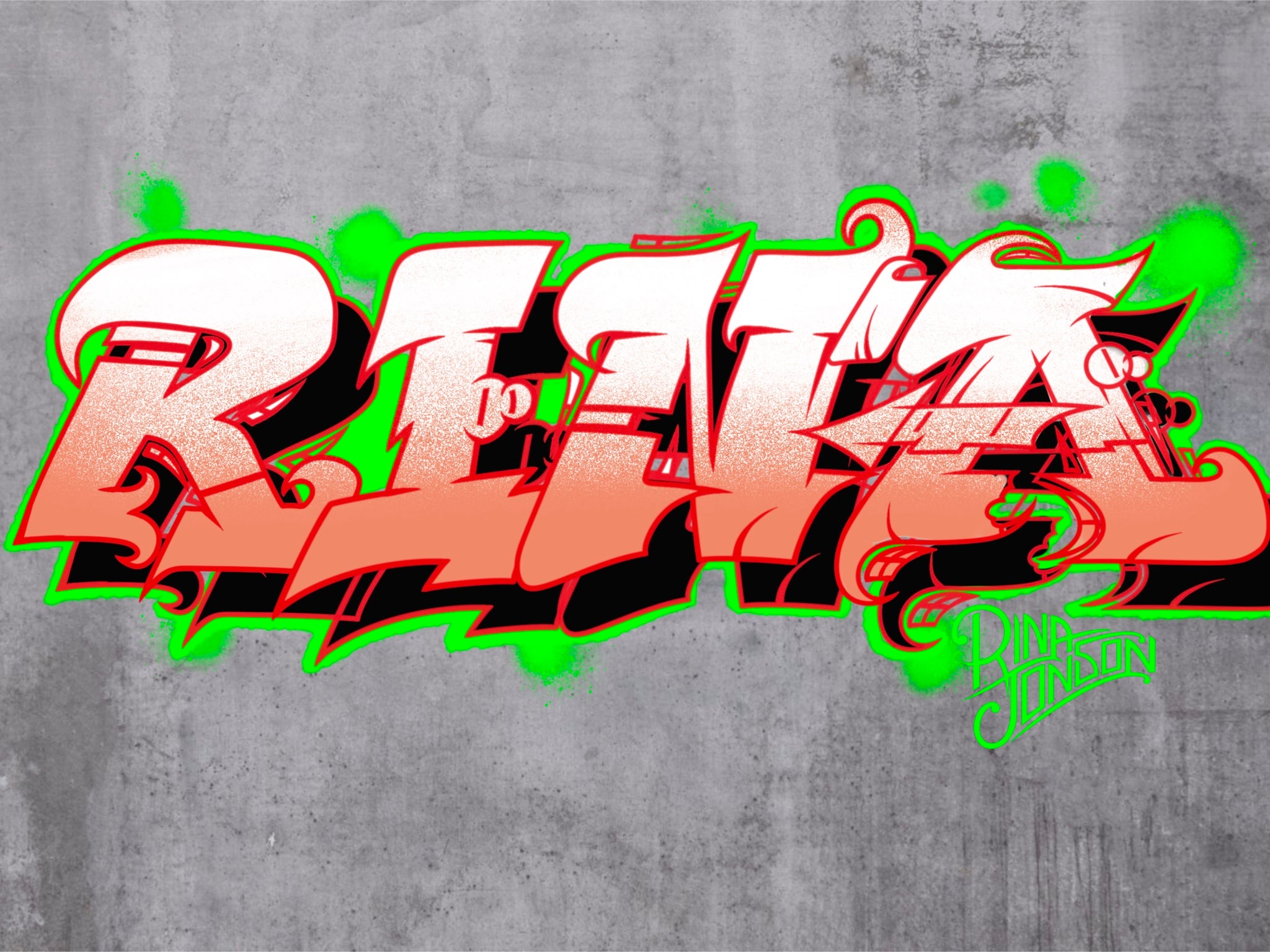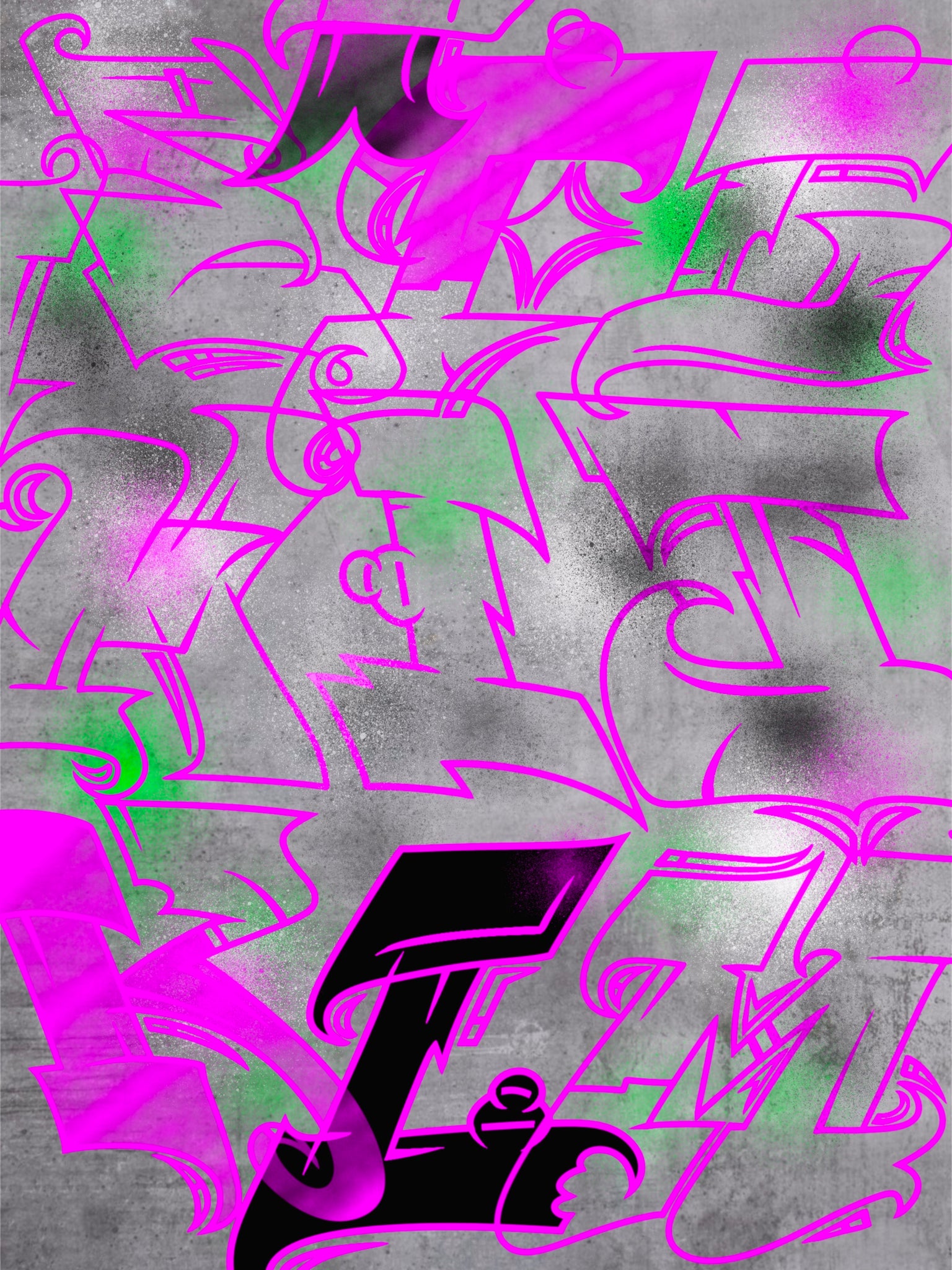
Marseille Graffiti brushes for procreate on Ipad & Ipad pro, Alphabet, typography, font
26 Graffiti Letters MARSEILLE Brushes for Procreate
Graffiti Stamps for iPad & iPad Pro | Outline & Shading Versions | Street Art Alphabet
Bring urban style to your creations with this unique collection of 26 Graffiti Letter Brushes for Procreate.
This Volume 2 edition includes the full alphabet in a bold graffiti style, with outlines and shading variations, perfect for lettering projects, tattoo flash sheets, or custom street-inspired designs for your clients.
Convenient for Tattoo Artists & Designers:
These brushes are ideal for creating graffiti-inspired stencils, lettering, and saving time during the design process.
The variety in this set ensures you'll always have the right graffiti letter at your fingertips.